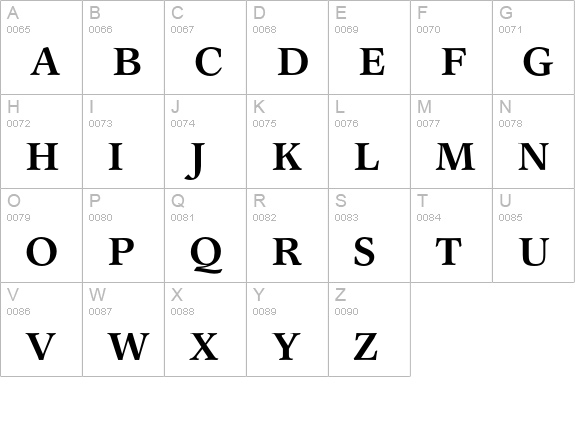
Garth Graphic Bold is a strong, high-contrast variant in the Garth typeface family \xE2\x80\x94 well suited to headlines, attention-grabbing titles, and strong calls-to-action.
Garth Graphic Bold is a modern and stylish font that exudes confidence and strength. Its bold and sharp design makes it perfect for headlines, titles, and attention-grabbing text. The font features clean lines and a contemporary feel that will elevate any design project. Whether you're creating posters, logos, or branding materials, Garth Graphic Bold will make a bold statement. The best part? Garth Graphic Bold is available for free download at FontsMarket.com. You can easily access this versatile font and use it in your personal and commercial projects without any restrictions. Don't miss out on this fantastic opportunity to enhance your designs with the striking Garth Graphic Bold font. Download it now and let your creativity shine!